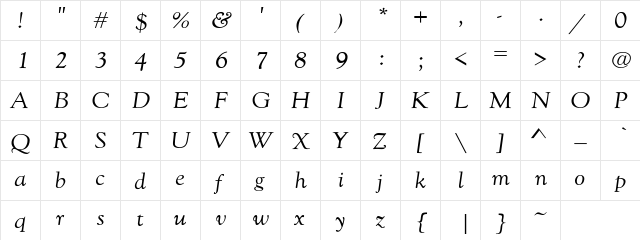
GoudyExt-Norm 2 Regular Font Preview
GoudyExt-Norm 2 Regular
Design Context for GoudyExt-Norm 2 Typeface
GoudyExt-Norm 2 is a composed and adaptable typeface that performs quietly and consistently across a wide range of design contexts.